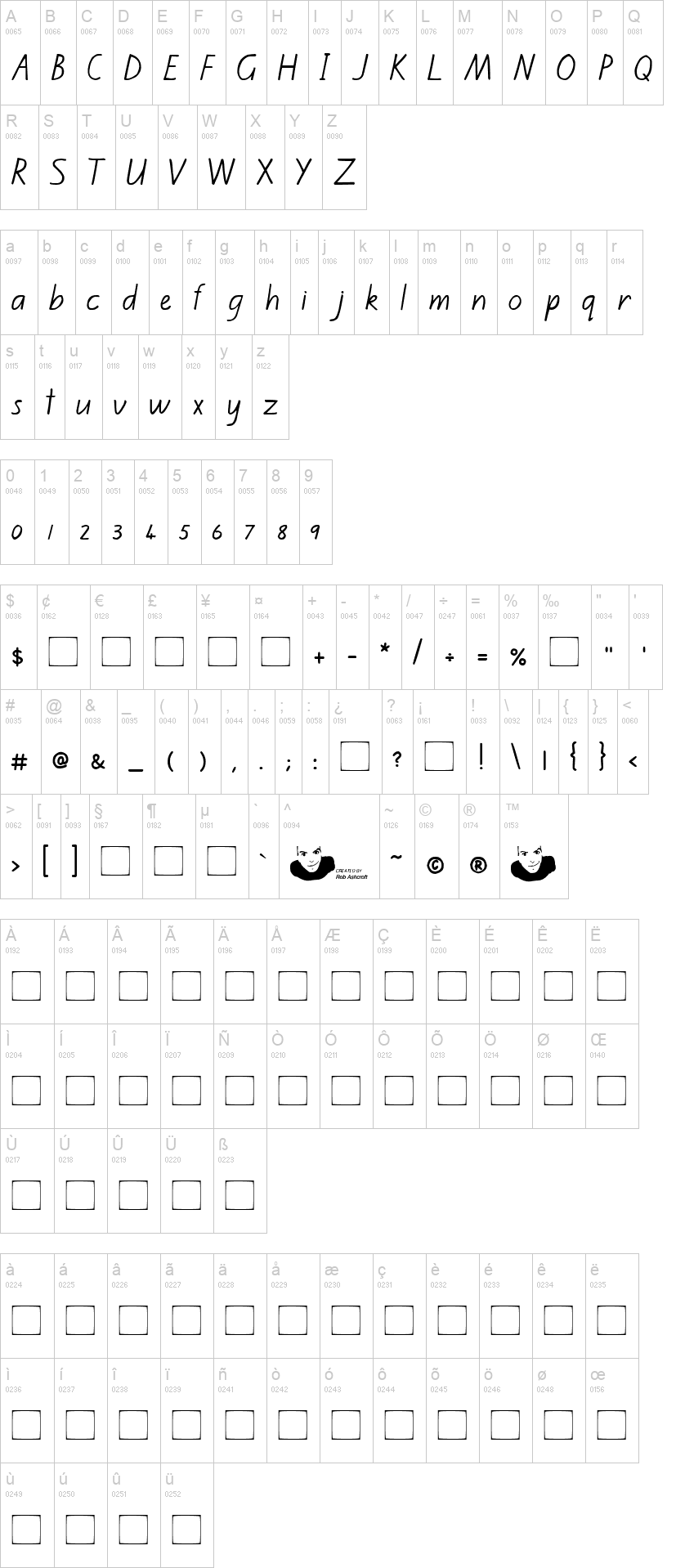
Note of the authorBased on the style described in the New Zealand Ministry of Education 'Teaching Handwriting' manual.
- macrons for Māori
- maths operations symbols +-÷x
- font height adjustments for consistency
- kerning adjustments